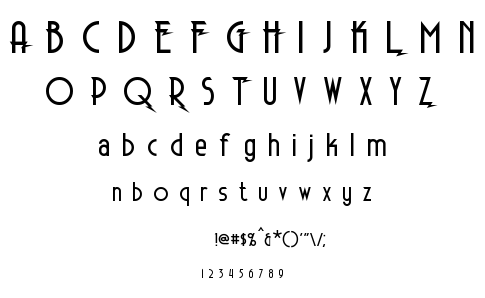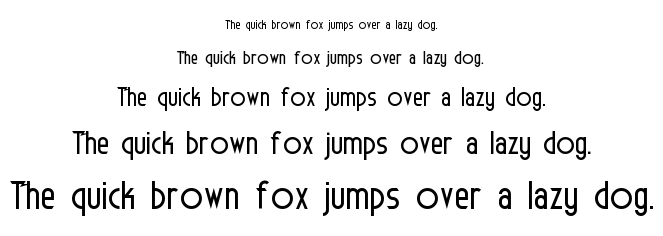
An art-deco font with occasional lighting flourishes similar to those found in the logo of “The Rocketer”. Includes full alphabet, euro, accent characters.